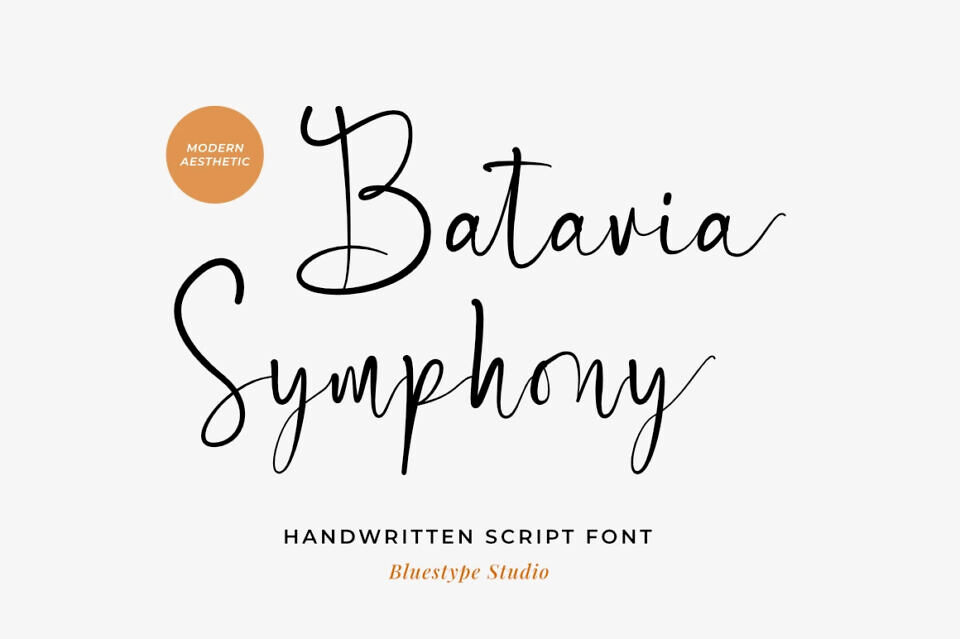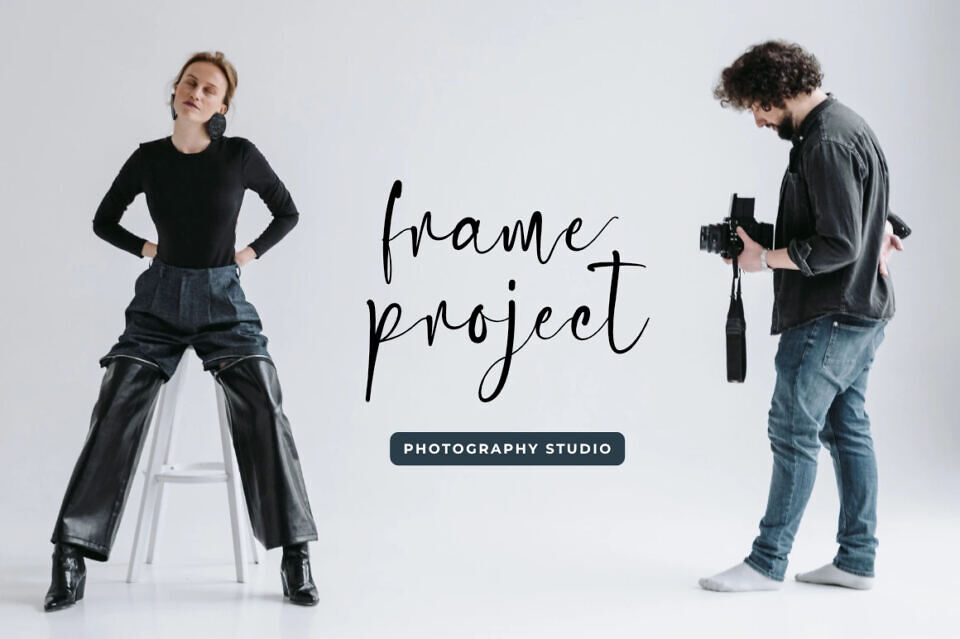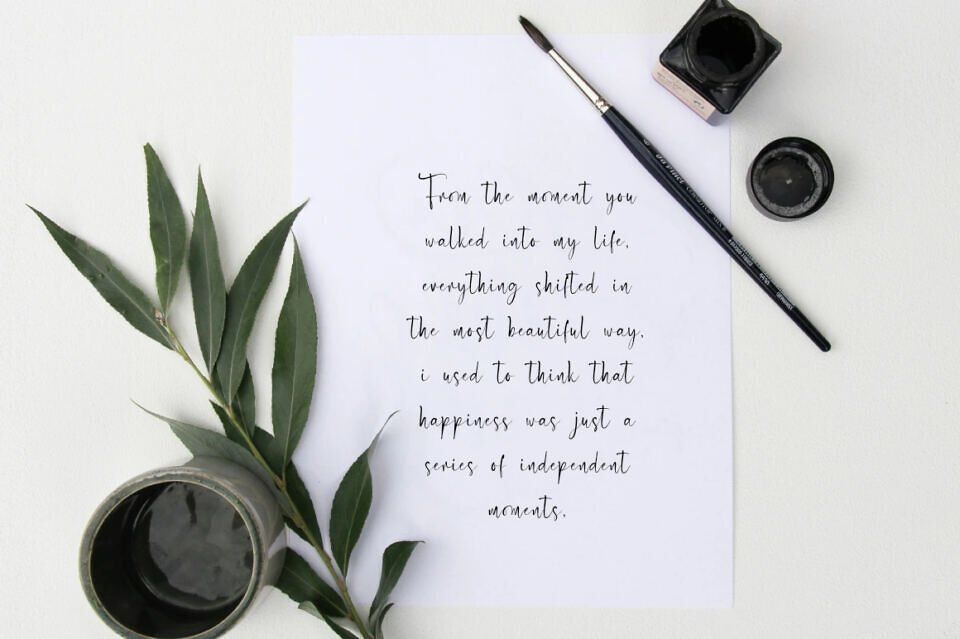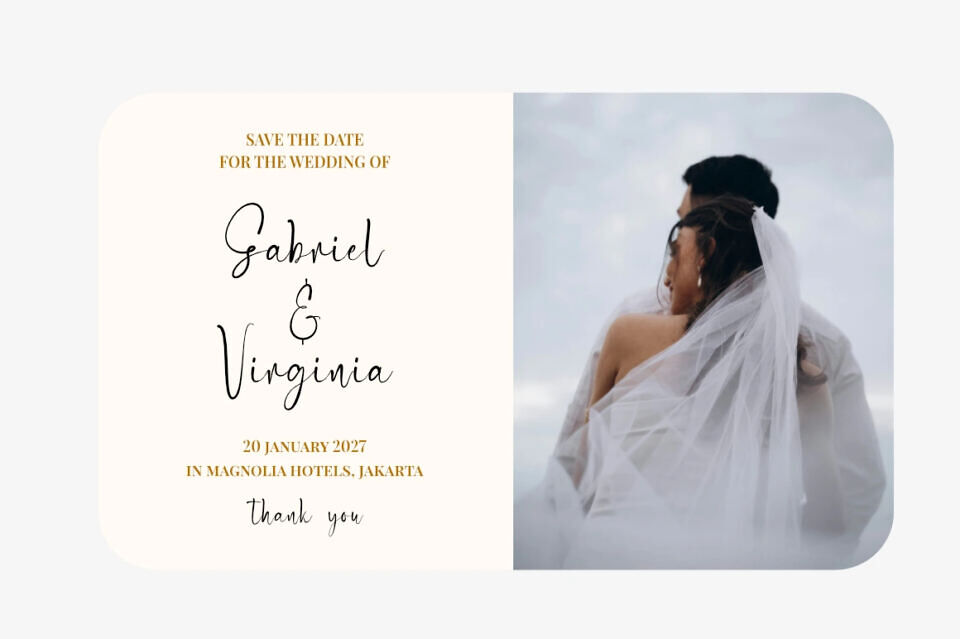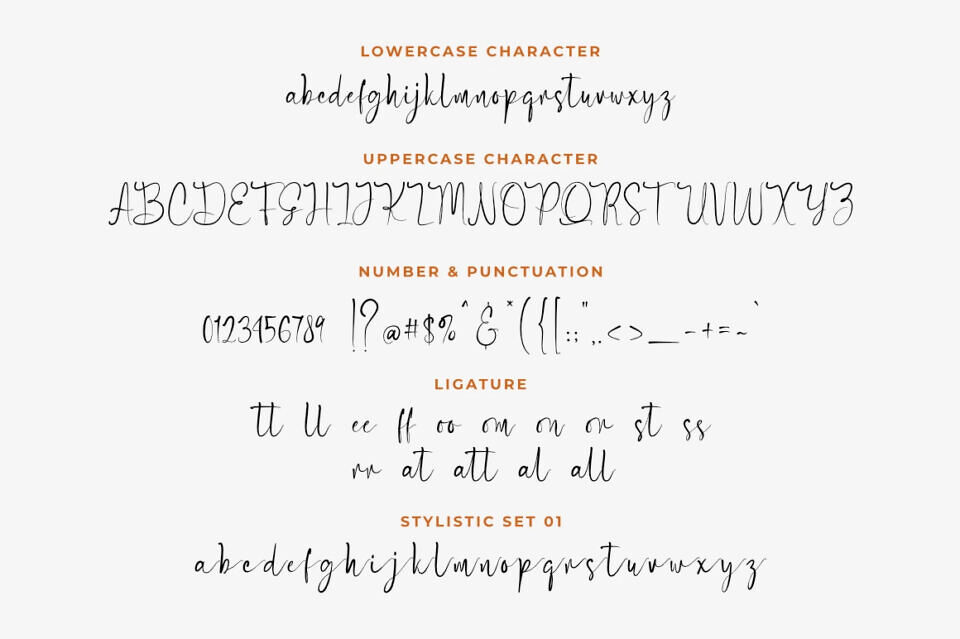
Meet Batavia Symphony, a stunning modern handwritten font that beautifully balances natural fluidity with contemporary elegance. Inspired by expressive, rhythmic pen strokes, this script font delivers an authentic, organic feel that makes your text look genuinely hand-poured.
With its graceful curves and sophisticated charm, Batavia Symphony is the ultimate choice for designers looking to create a premium, high-end aesthetic. It’s incredibly versatile and looks breathtaking on everything from lifestyle photography overlays to high-fashion logos.